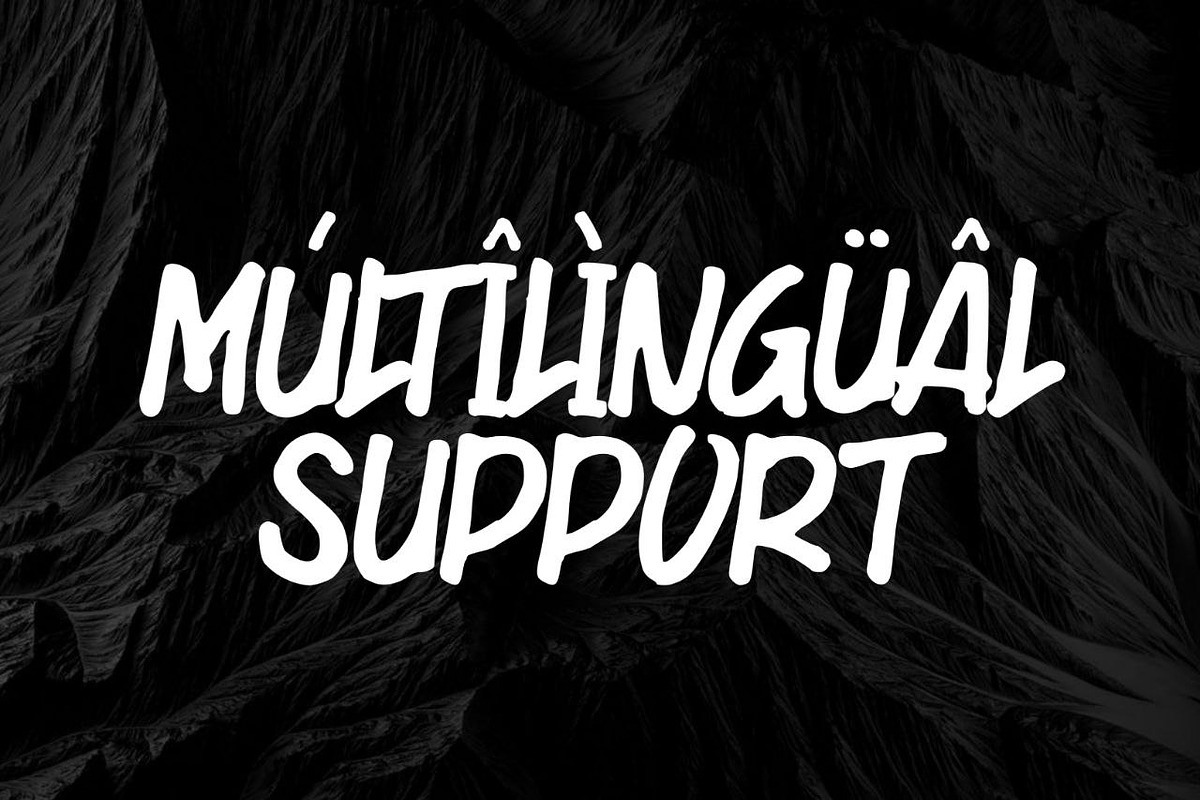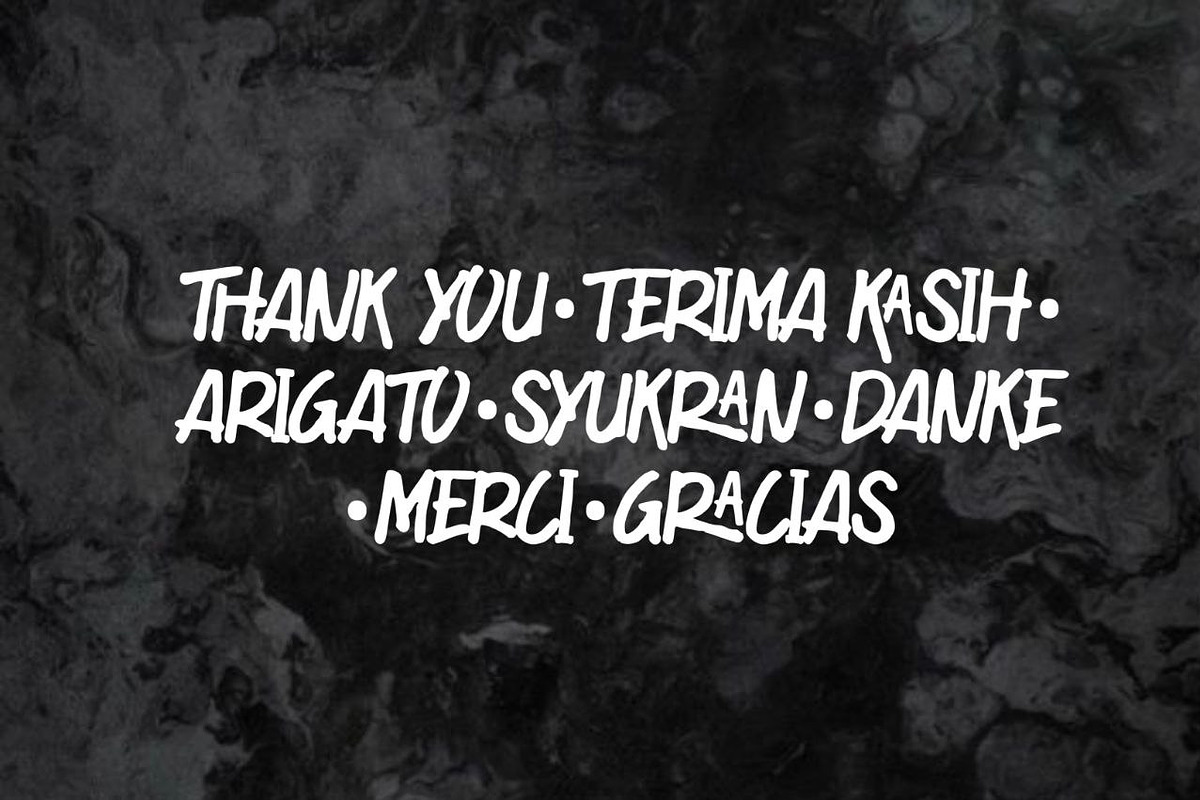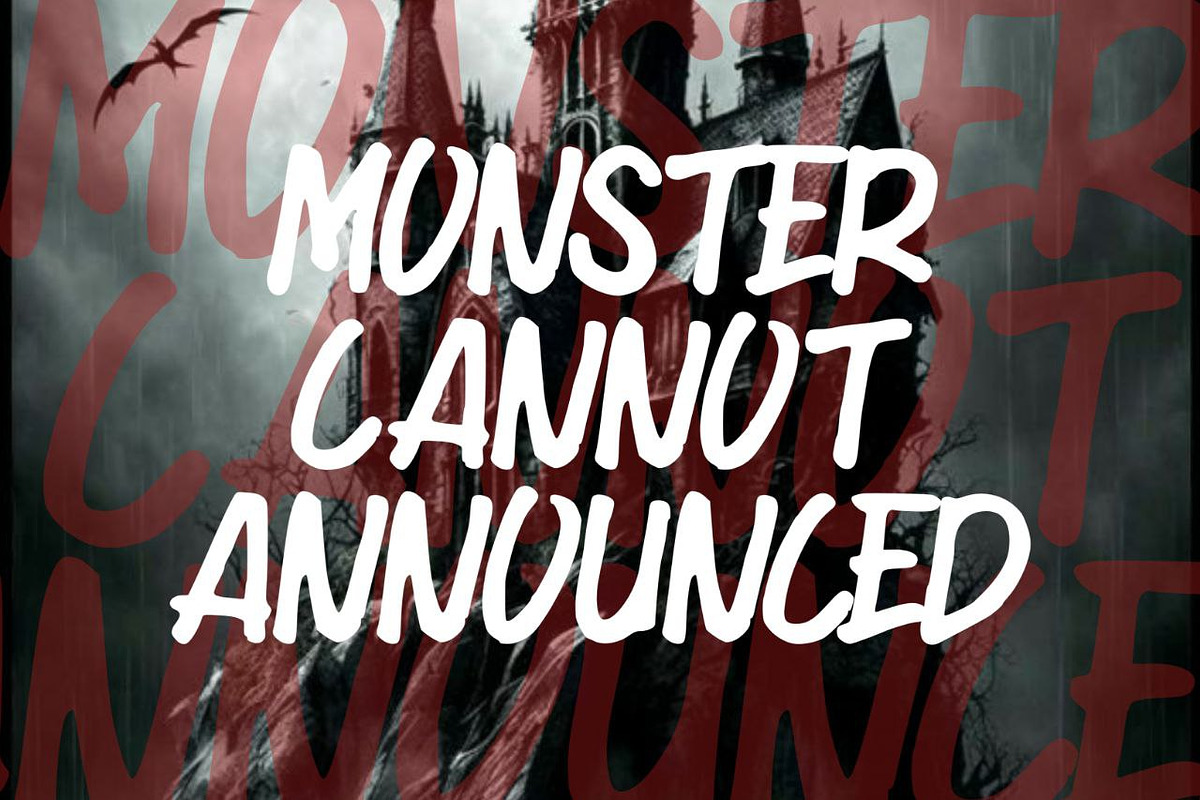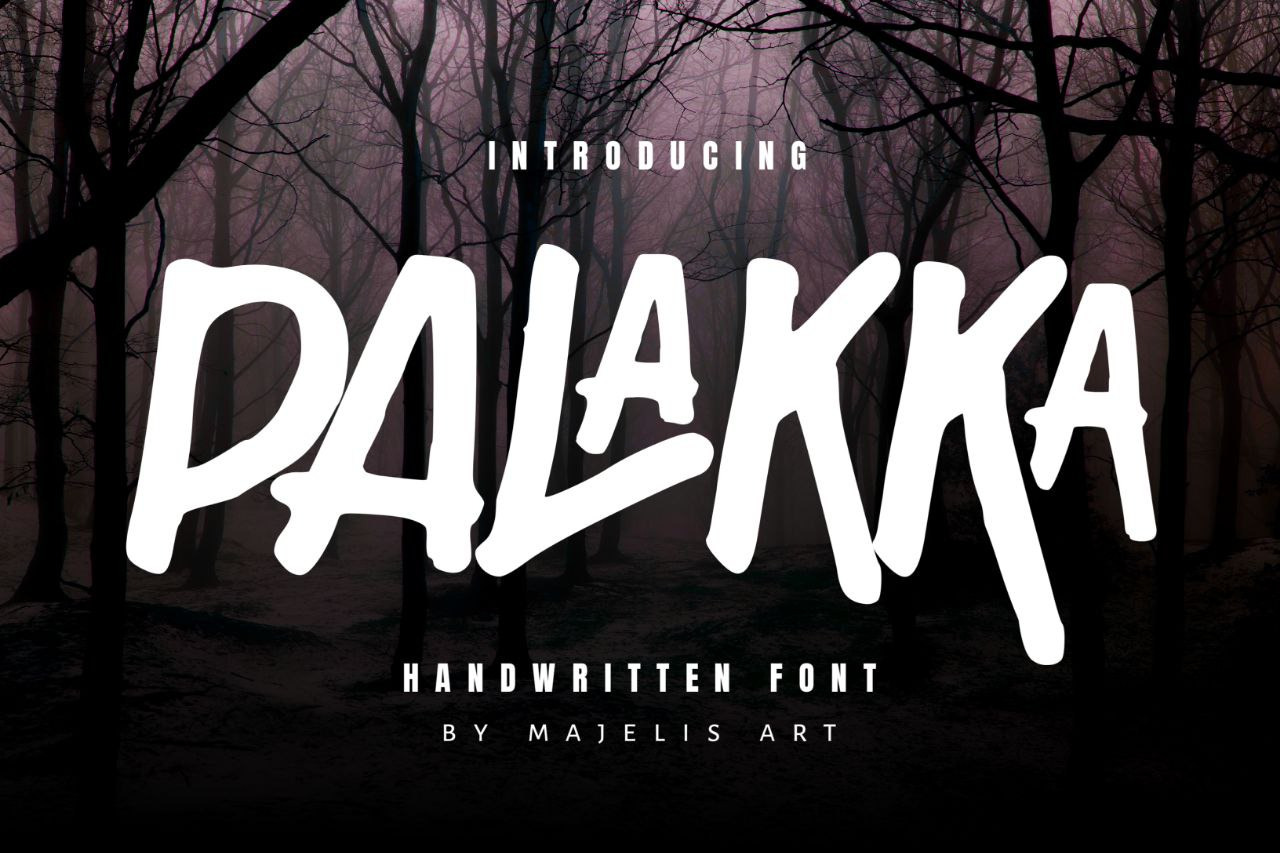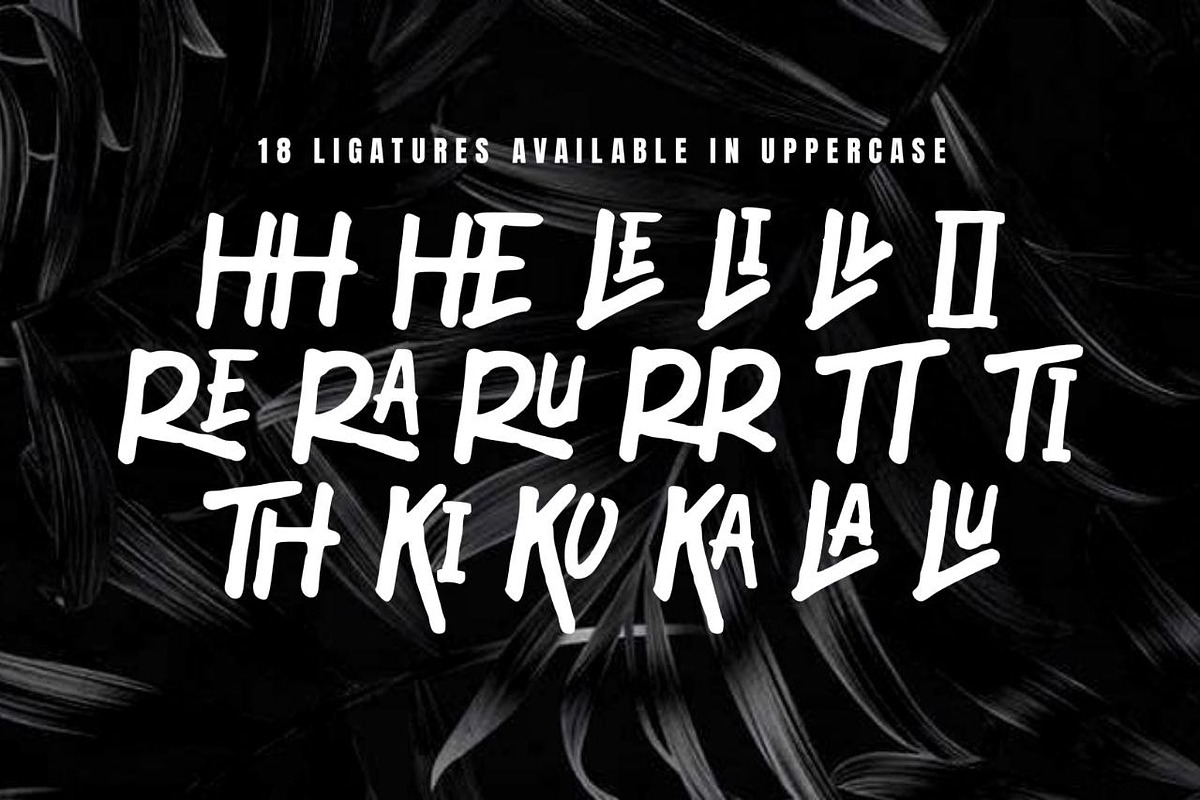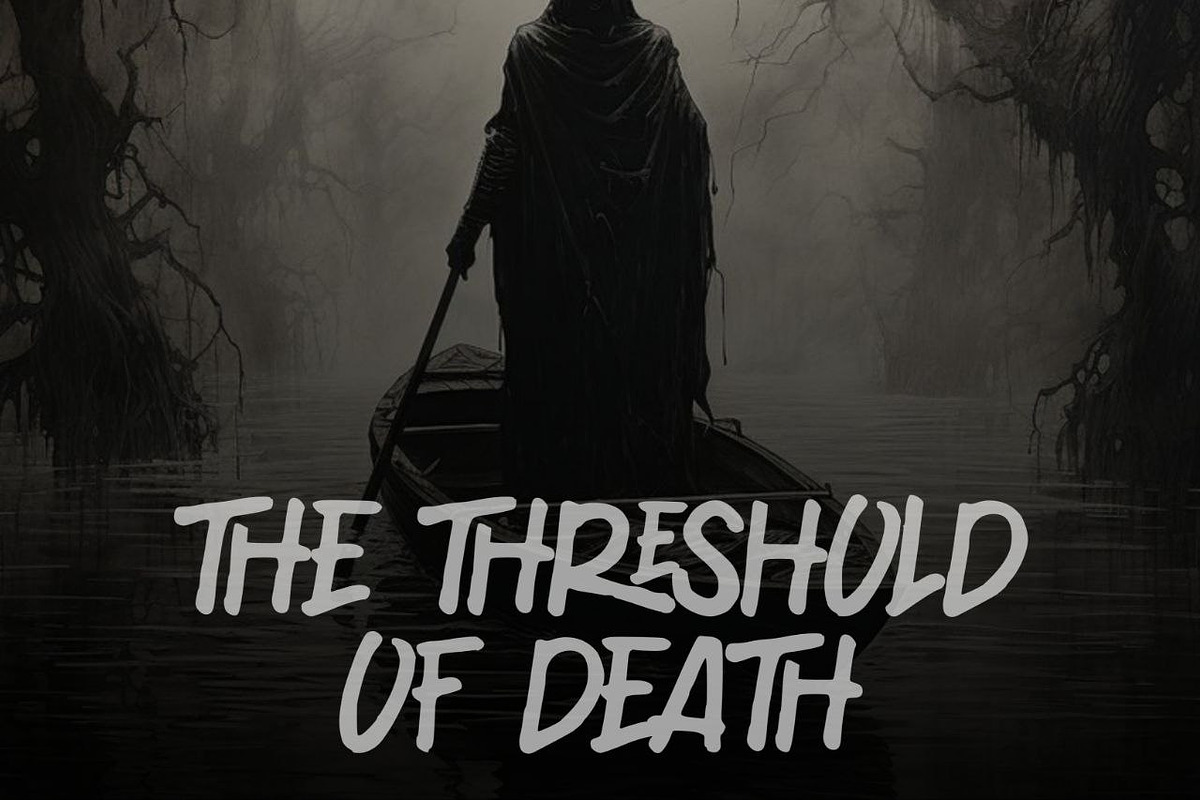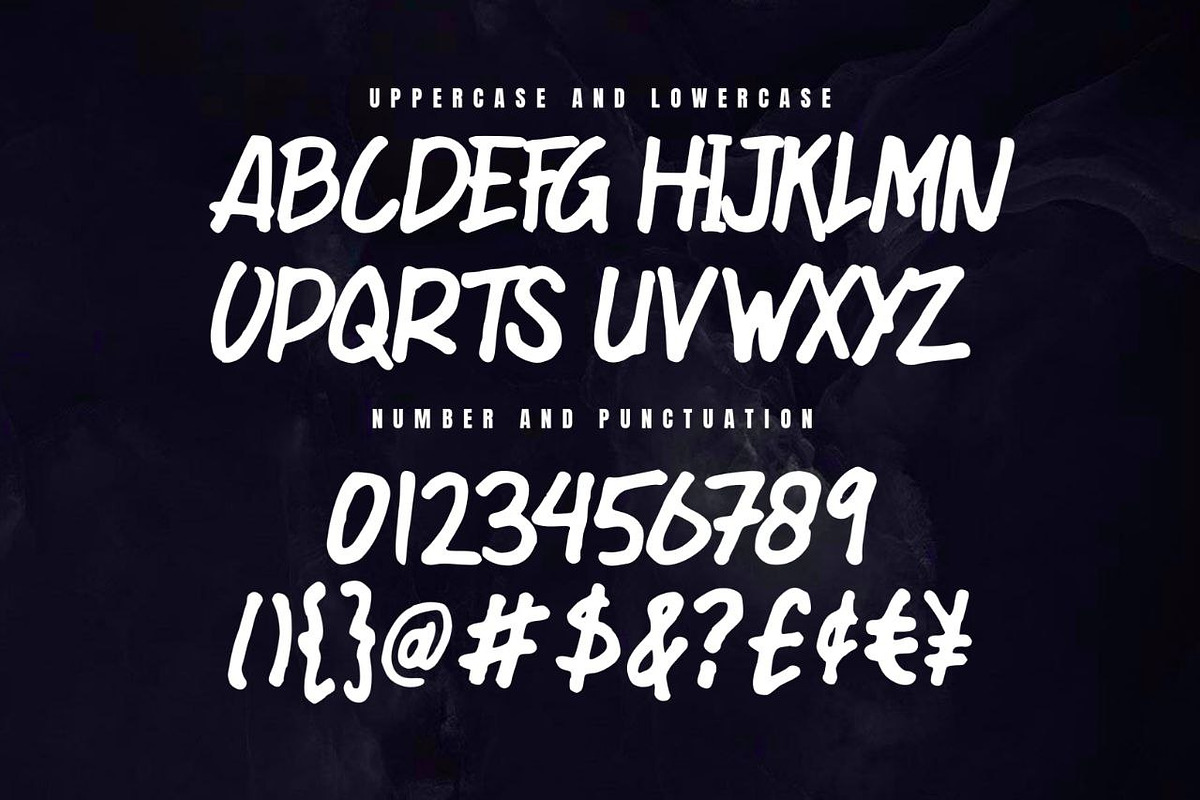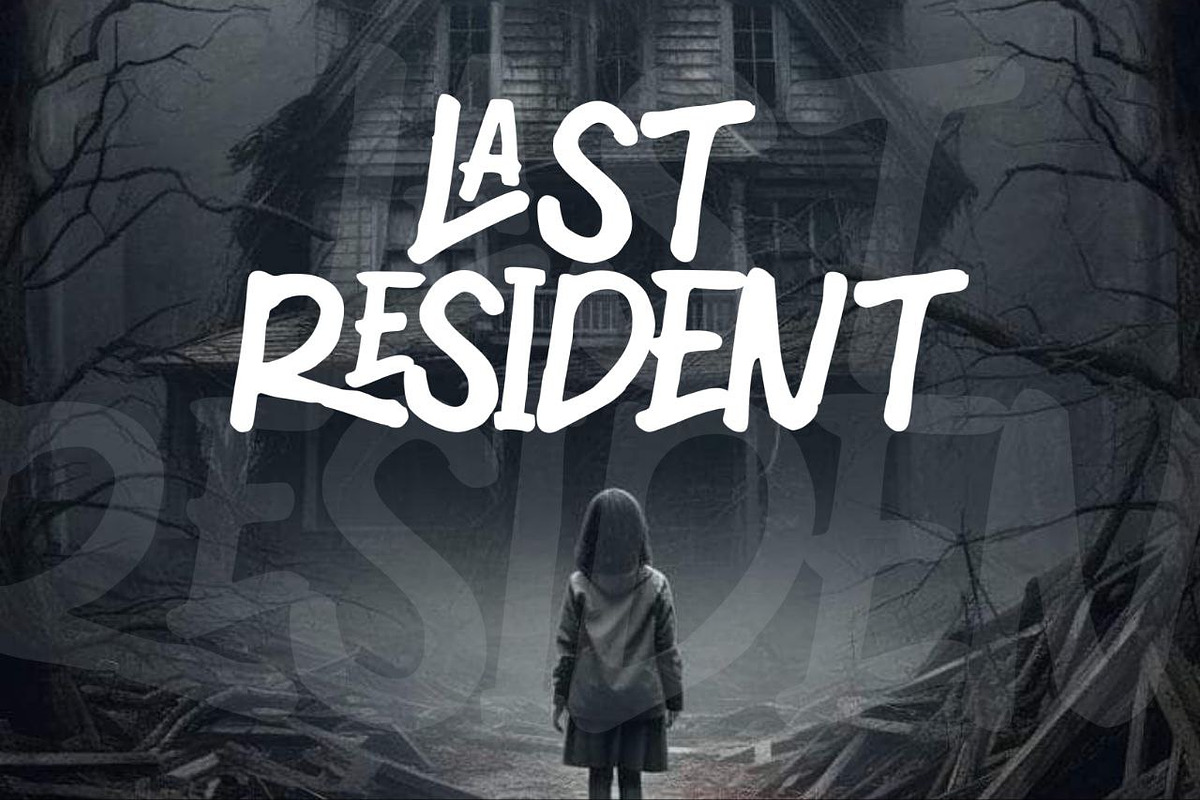
PALAKKA - Handwritten font
Palakka is the name of a Bugis king. He was the 15th king of the Bugis tribe, who ruled from 1672–1696 AD. He was a king who was greatly feared by the Dutch colonialists at that time.
From his name, we made a decision to use it as the font title. Since he is a powerful king, we made the font look very fierce, And there is an additional mystical aura to make the font more attractive.
This font is very suitable for use in media, thesis titles, horror, scary and creepy films Likewise for those who have a business in a large company
What's available in this font?
- Number and Punctuation
- Multilingal support
- And Ligatures